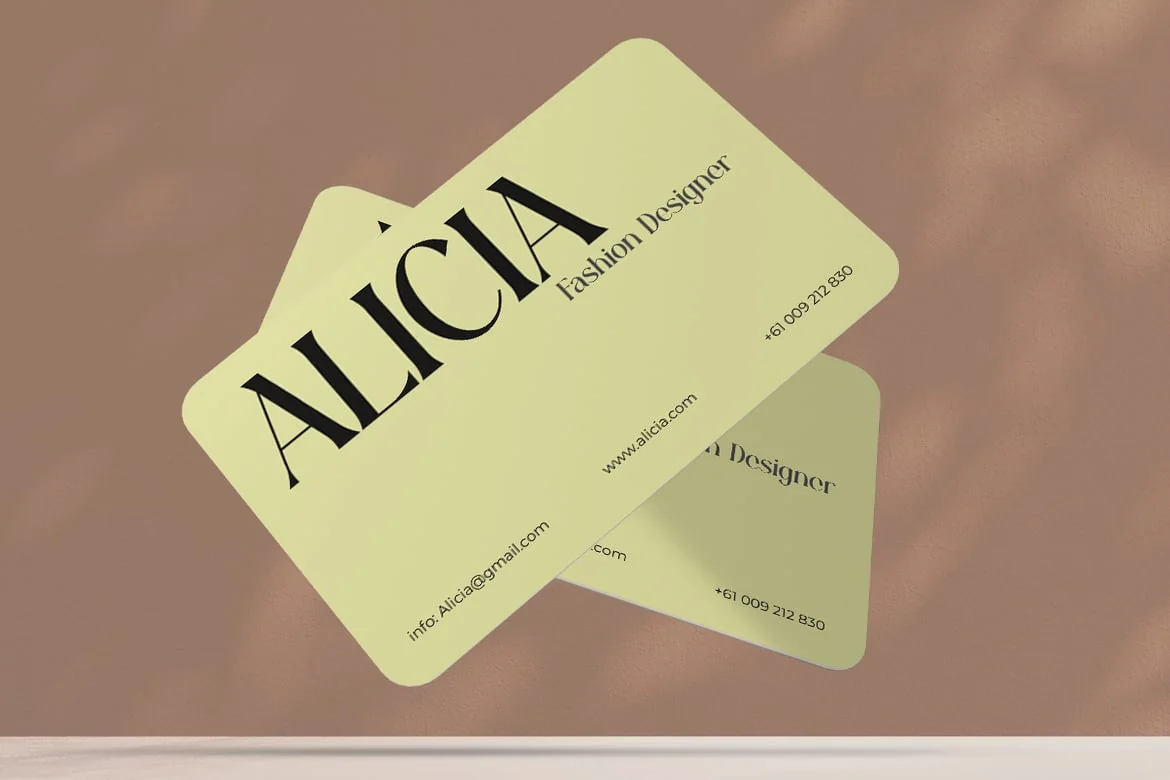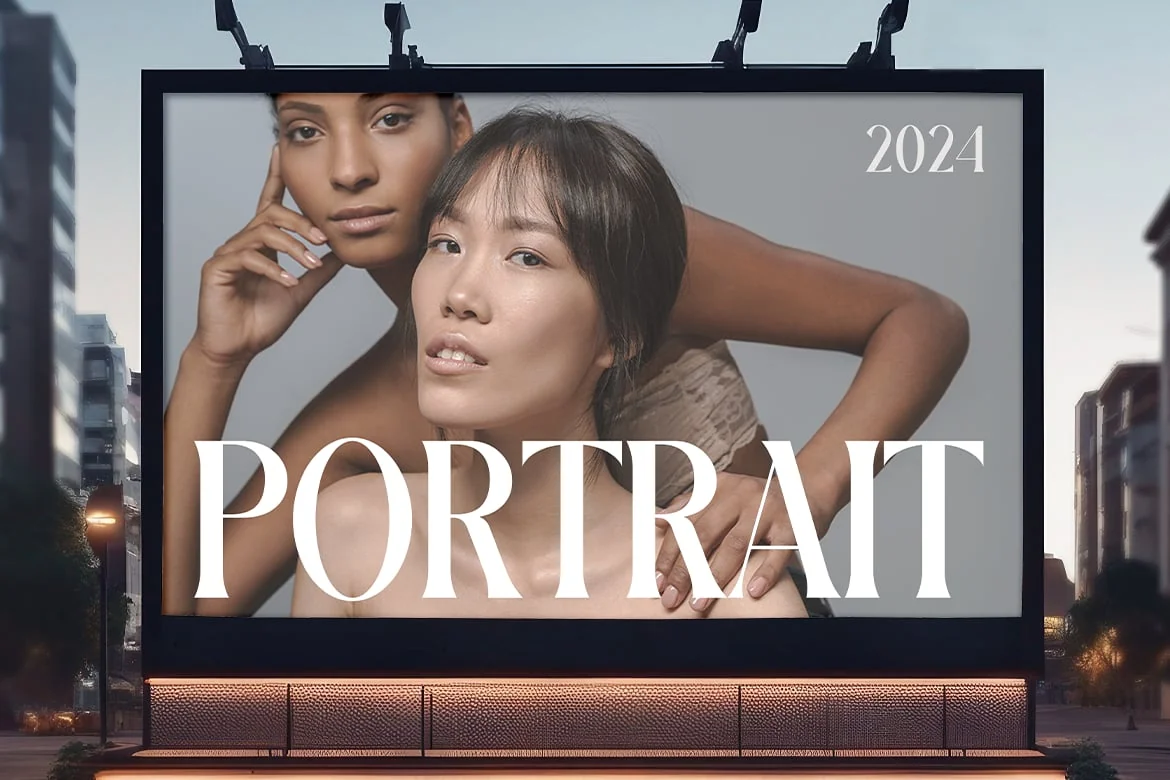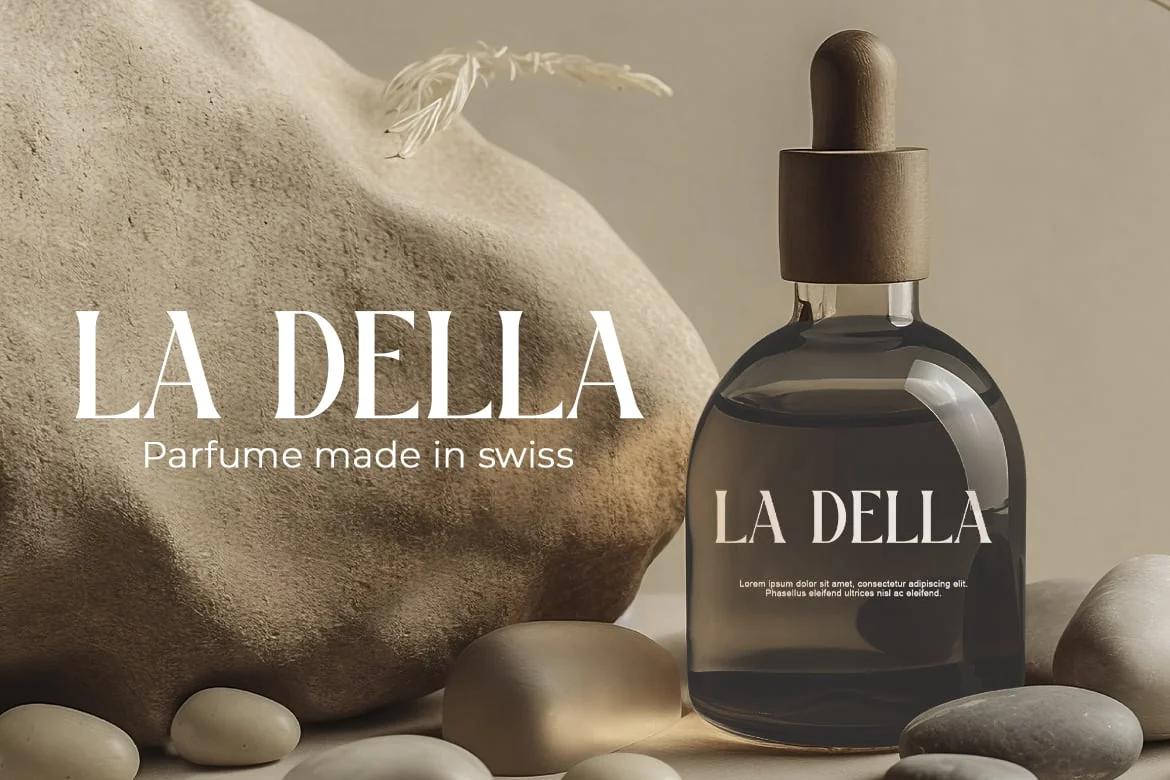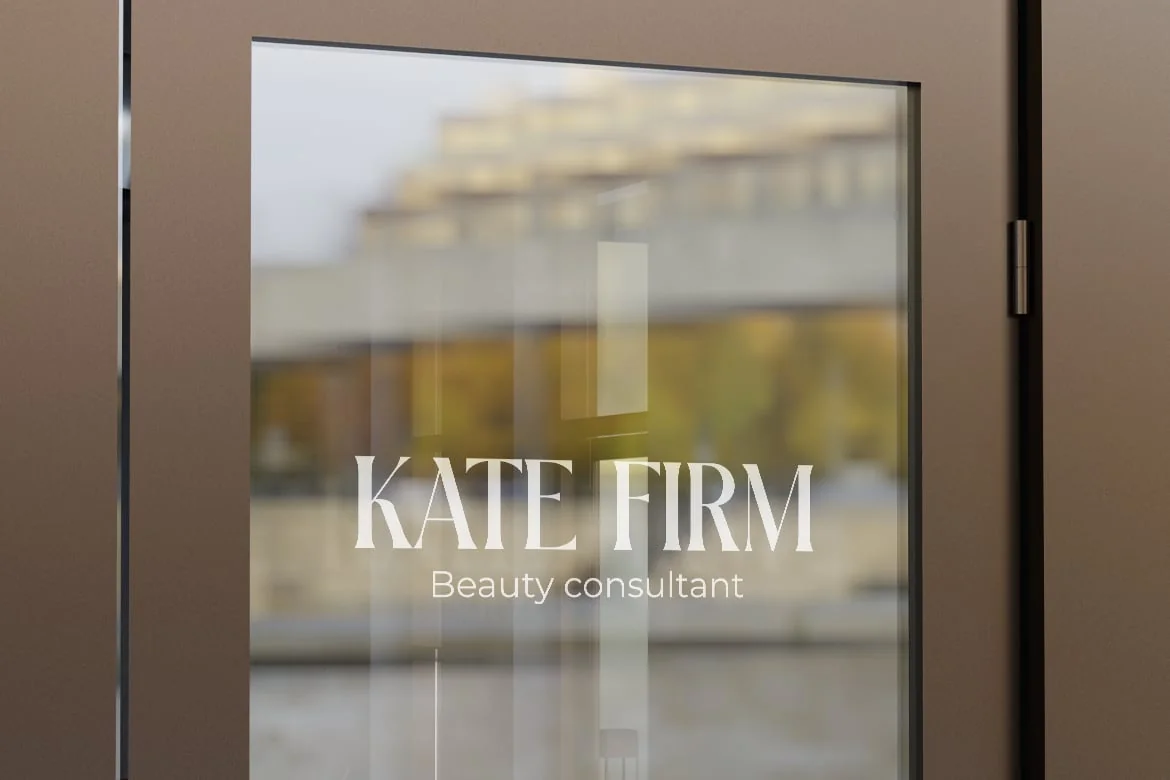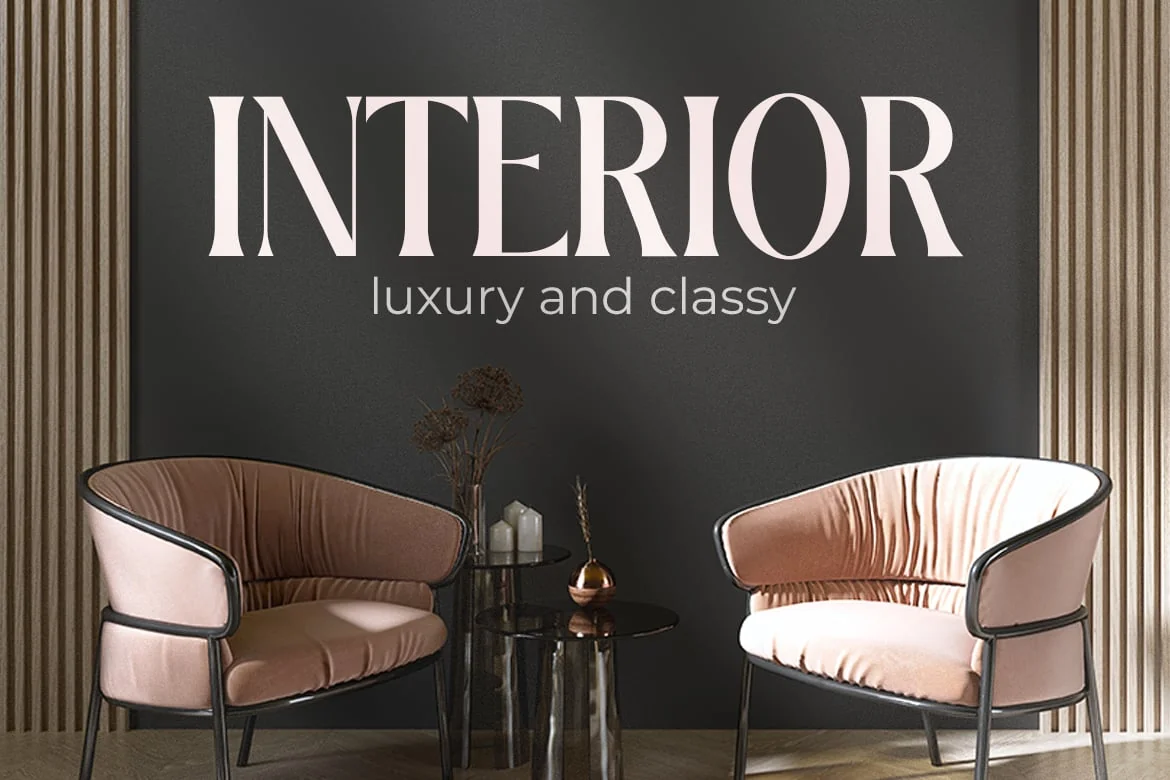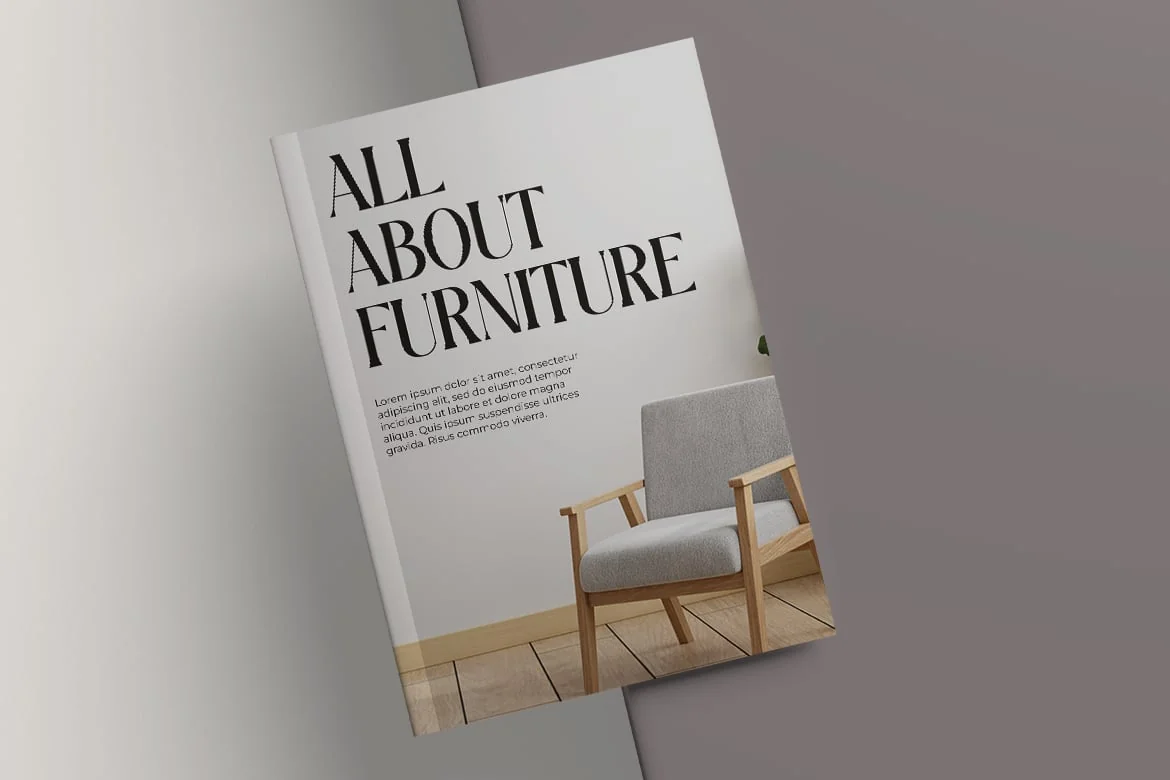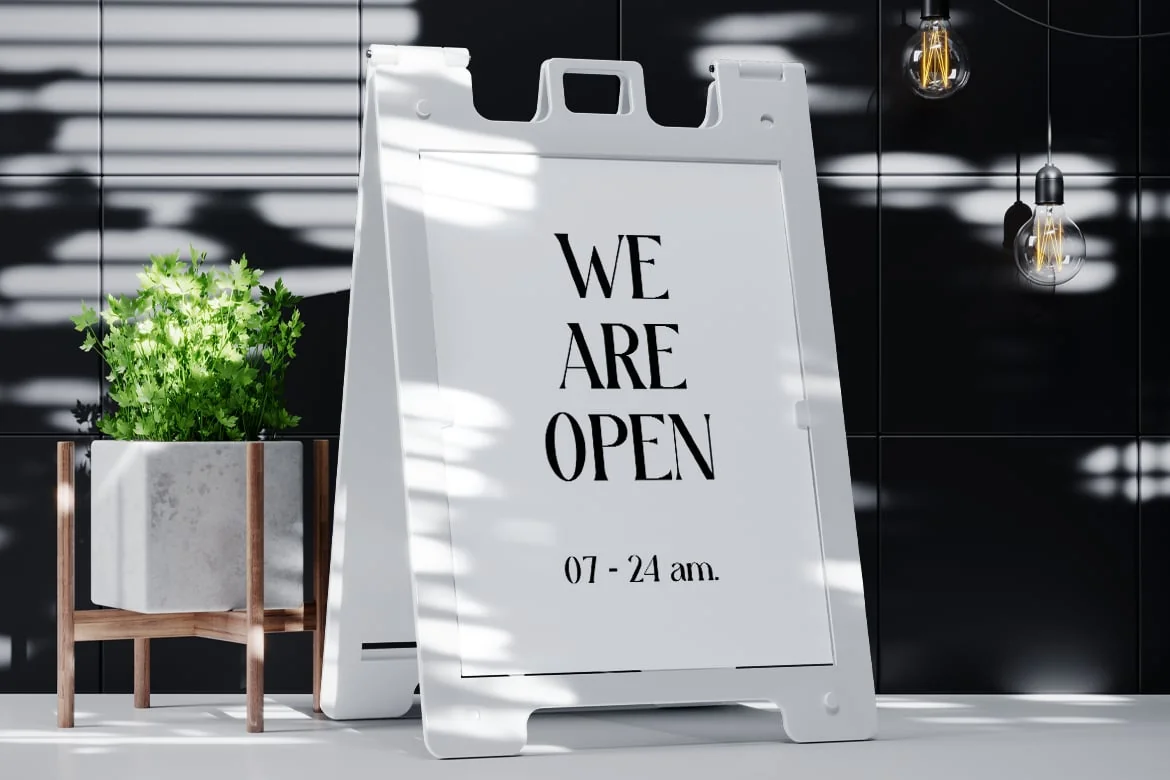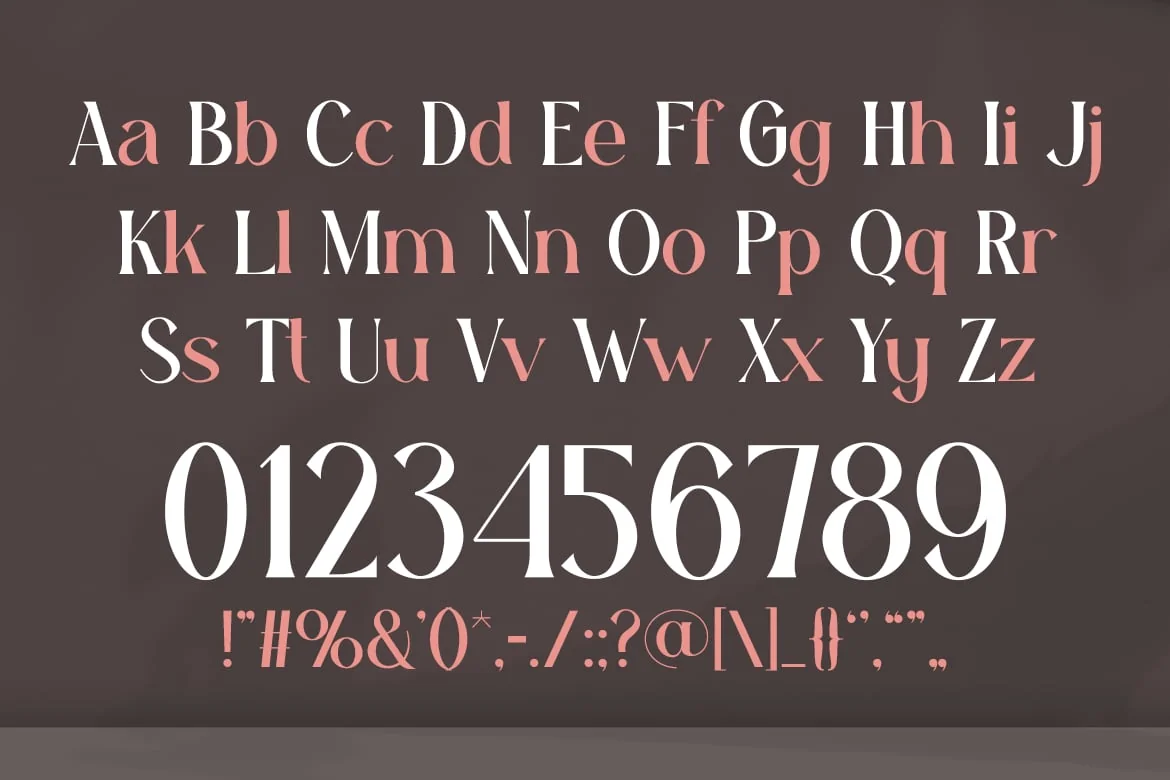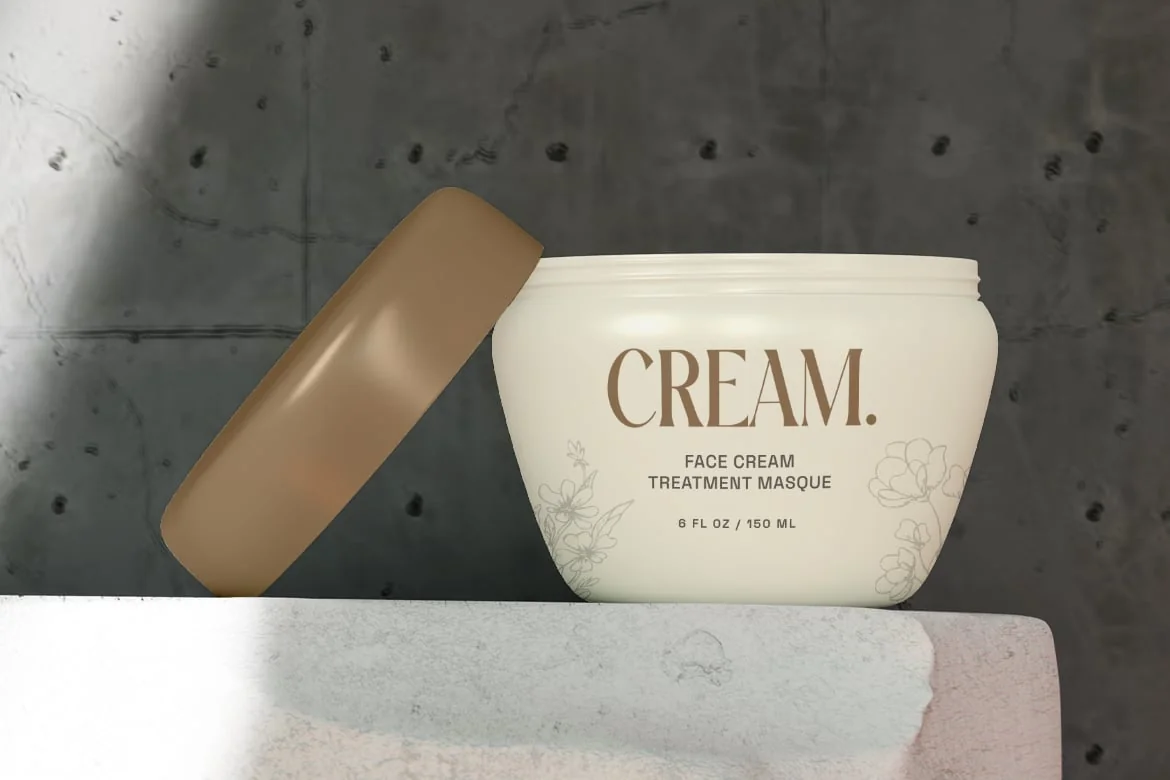
Clarissa Modern Elegant Font
Clarissa is a modern font that radiates elegance and sophistication, explicitly tailored for fashion-forward and girly design projects. Its sleek and refined lines make it perfect for creating upscale logos, adding a stylish flair to quotes, and designing chic invitations. Clarissa enhances visual communication, from posters and greetings to sophisticated branding and packaging. This font also excels in creating eye-catching covers and promotional materials for events, ensuring every element is infused with grace and modernity. Whether used in headlines or advertising, Clarissa delivers a message of refined beauty and contemporary elegance, making it a staple for designers seeking to combine style with impact.